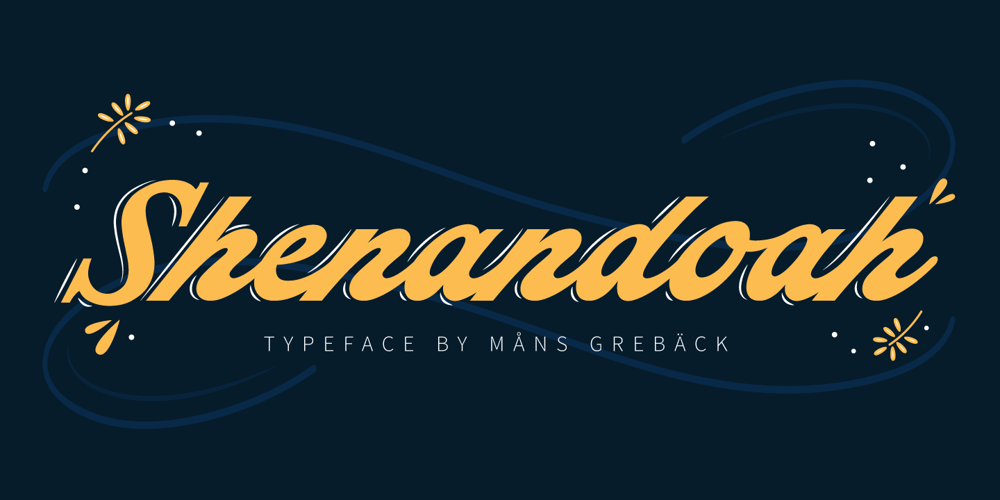
Shenandoah Font Family was designed by Måns Grebäck and published by Mans Greback. Shenandoah contains 1 styles and family package options. Shenandoah is a beautifully crafted script by Måns Grebäck, and is made for lovely, flowing and professional typography. Shenandoah has bold, crisp lines, giving it a rustic and retro effect whilst keeping it sleek and modern. This typeface and a bit of love could be used for fashion, apparel, stationary, magazines, typography, film, books and marketing!